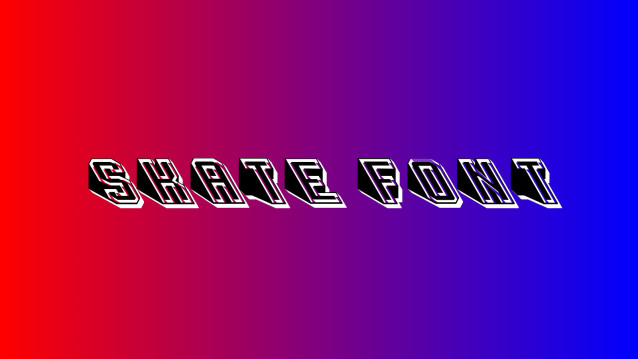
Skate Font is stylish decorative font ! Perfectly fit for branding, logo, wedding things, greeting cards, fashion, lookbook, marketing promotion, anytime you want to look fancy elegant but still casual.
Skate Font
| Designer Name: | Vladimir Nikolic |
| Classification: | 3D Fonts, Display Fonts |